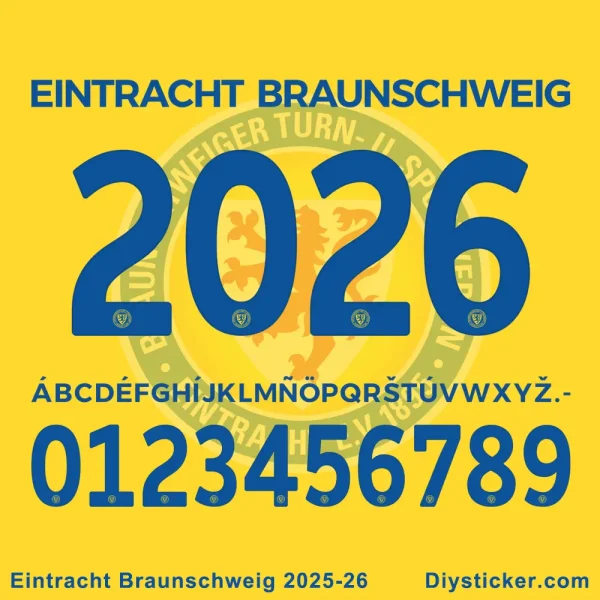
Whether you’re creating fan merchandise, social media graphics, posters, or digital content, this font captures the bold spirit of Eintracht Braunschweig. Fully scalable and compatible with Adobe Illustrator, CorelDRAW, Photoshop, and more. Ideal for personal and commercial use.